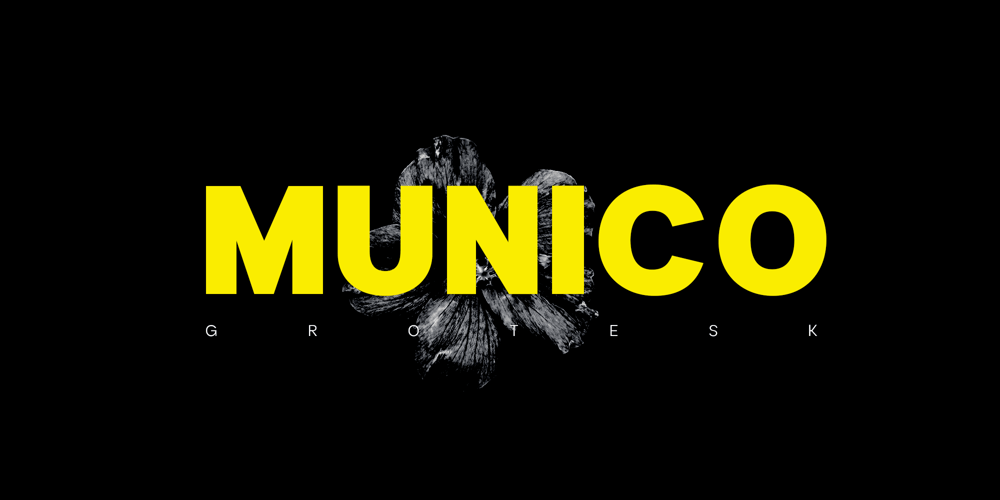
Munico Pro Font Family was designed by Evin Tony and published by FoxType. Munico Pro contains 9 styles and family package options. Munico Pro Display is a Brand New Elegant Typeface with a powerful font family. It has a dependable and uncompromising style, with controlled letterforms and modern touches. It looks amazing in logos, magazines, and movies. Munico Pro Font would be perfect for branding, headlines, Captions, paragraphs, and posters. The various weights allow you to experiment with a wide range of applications. It’s created to make an impression without sacrificing its beauty and readability. It’s shown a clean, minimalist, warmth, quirky, yet still purposed to be versatileThe Typeface includes Nine Weights – Thin, ExtraLight, Light, Regular, Medium, SemiBold, Bold, ExtraBold and Black.Numerals and extended punctuation (200+ Glyphs). Thank you for taking the time to look into the font.